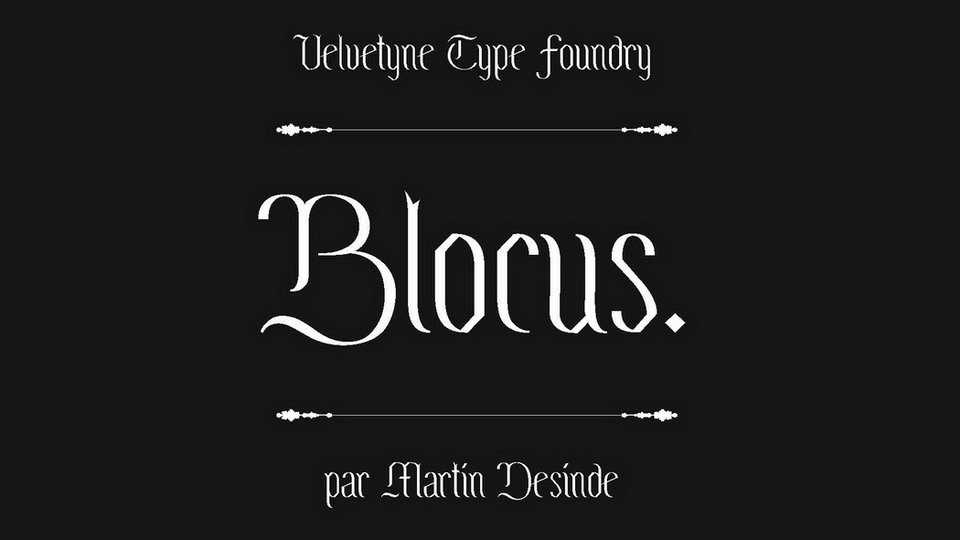
Download Blocus font, a light gothic typeface, somewhere between a Fraktur and a Didone, with broken curves, a strong contrast between thick and thin lines and imposing vertical.